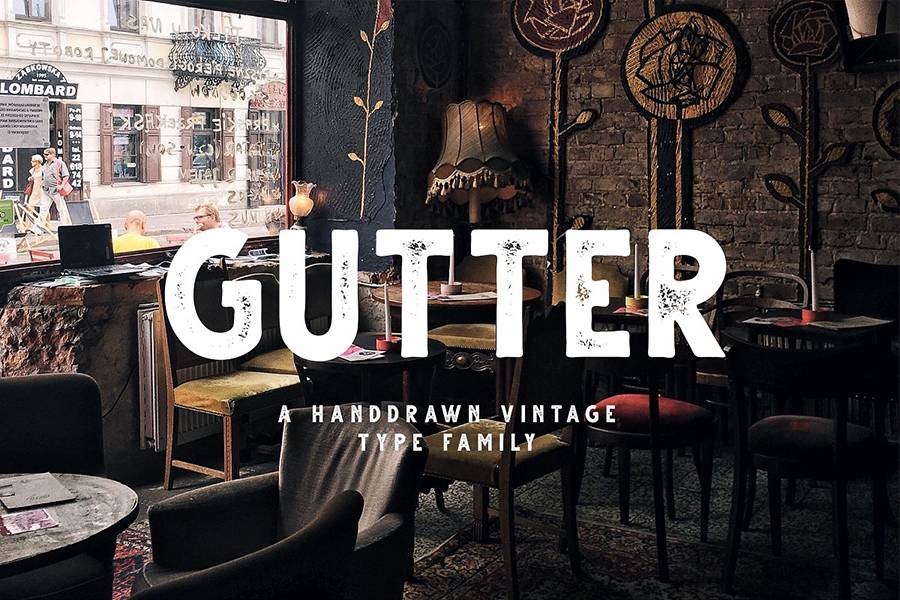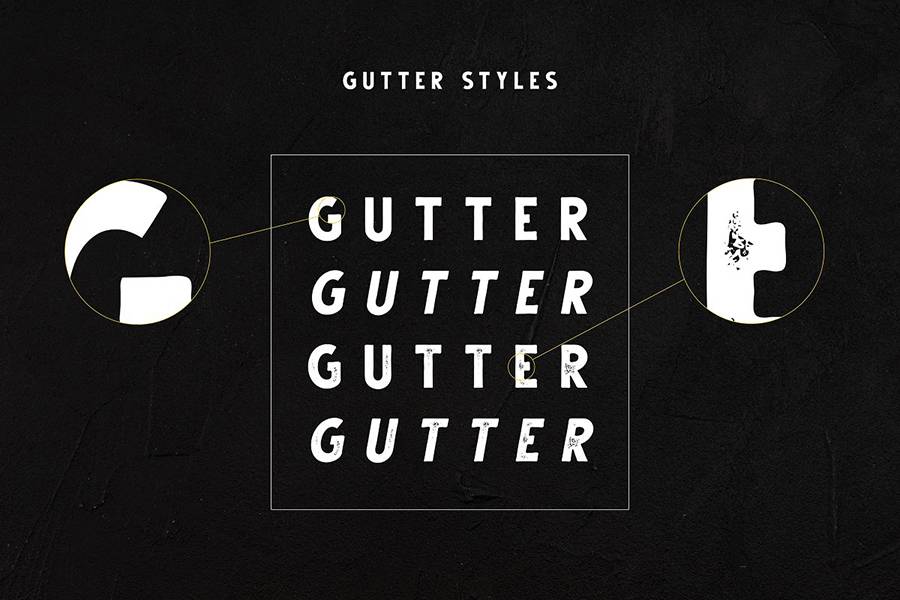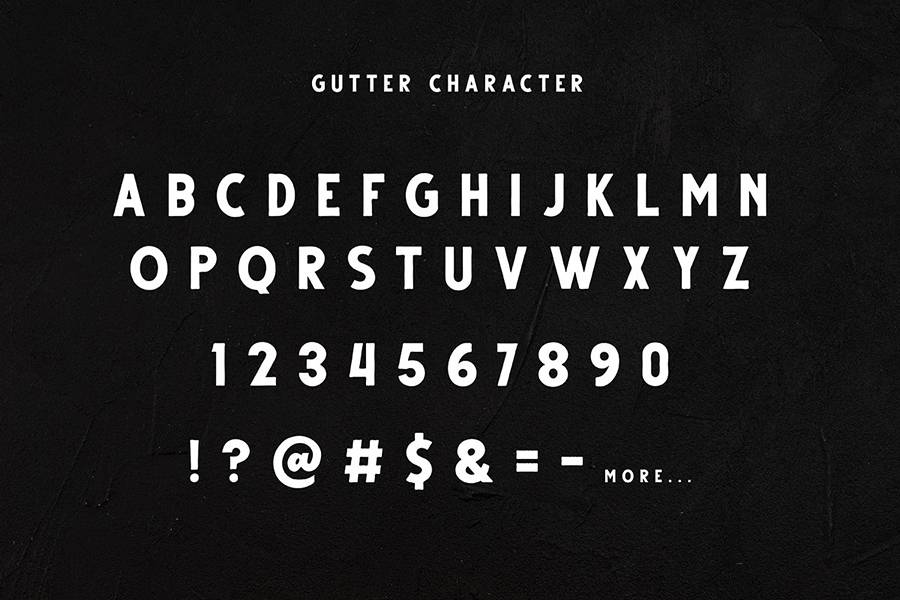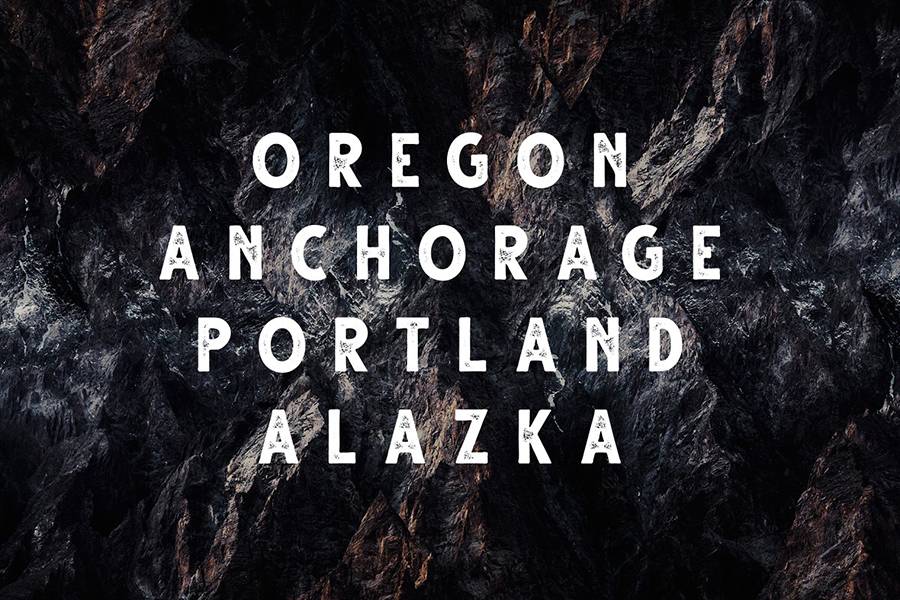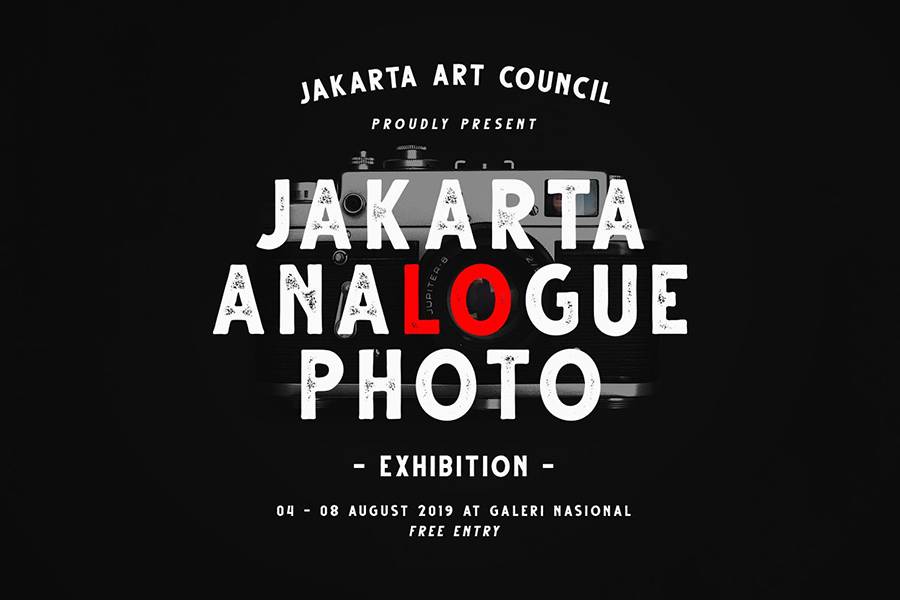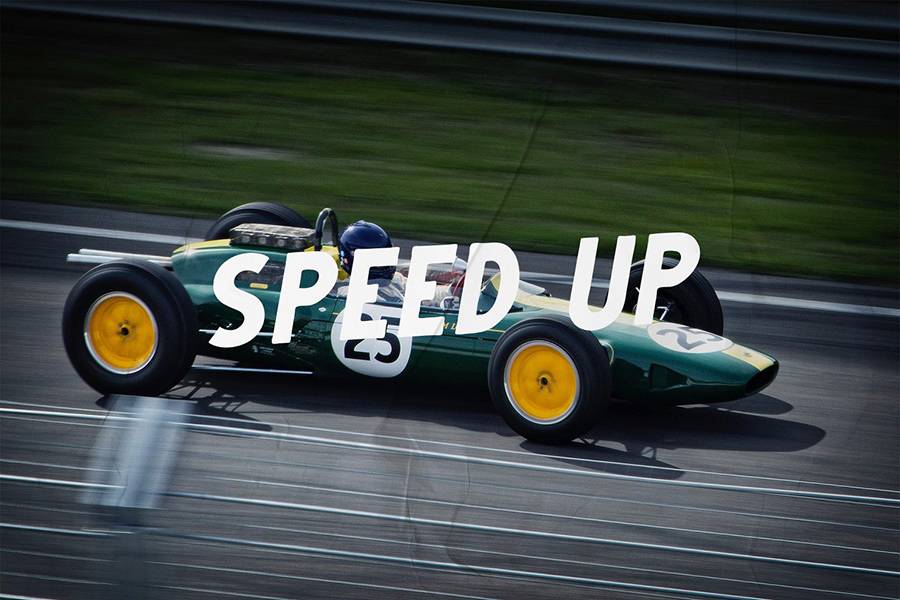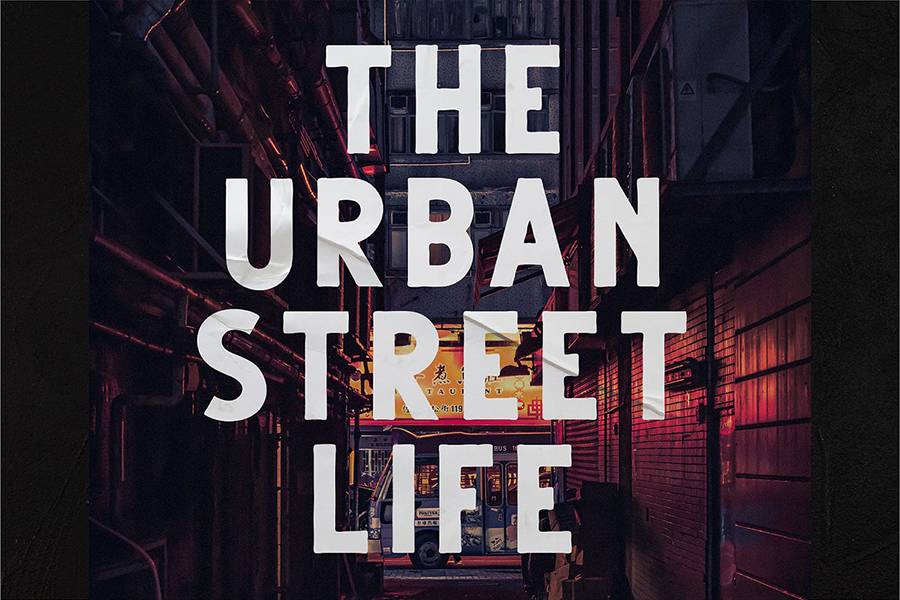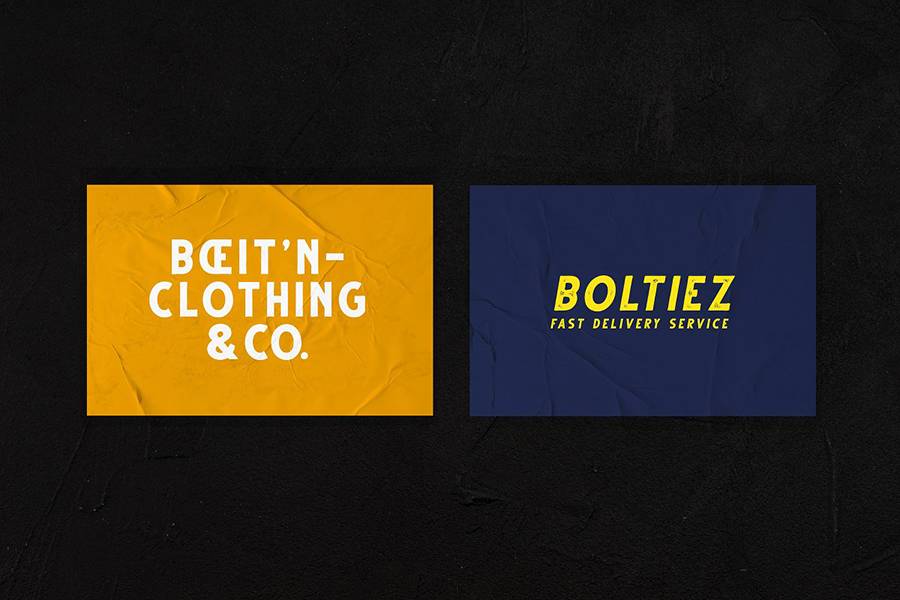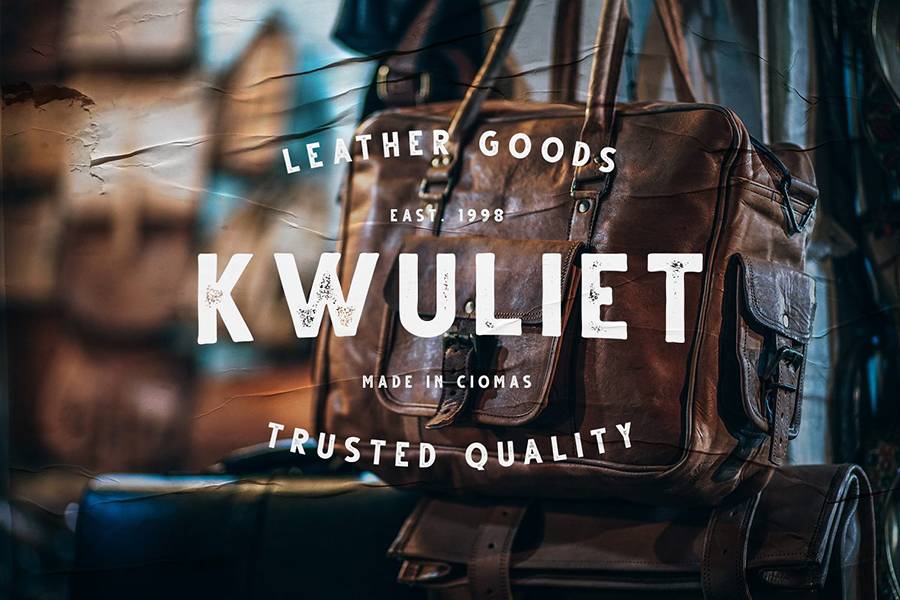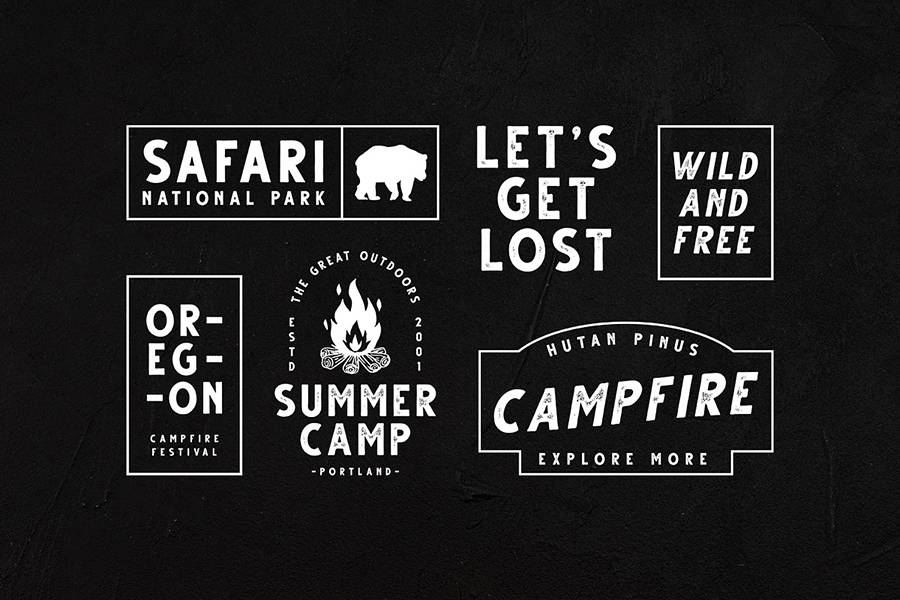
Gutter Handdrawn Vintage is a bold, all-caps sans serif font with a playful, rustic feel created by its rough, distressed texture and uneven letterforms. Its wide proportions and sturdy strokes give it a strong presence that works well for vintage-inspired branding, posters, and packaging where a handcrafted, authentic look is desired. This font conveys a friendly yet rugged personality, making it perfect for designs that want to evoke nostalgia and warmth with a modern twist.
Gutter Handdrawn Vintage Font
About Gutter Handdrawn Vintage Font
| Font family | Gutter Handdrawn Vintage Font |
| Release date | 2019-07-09 |
| Designer | Andika Setiawan |